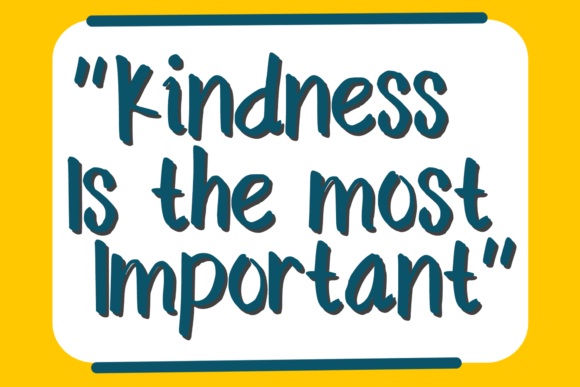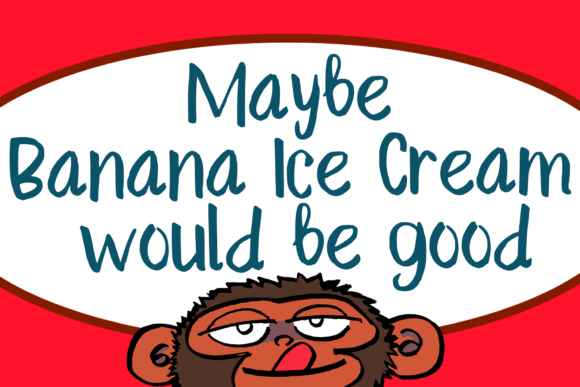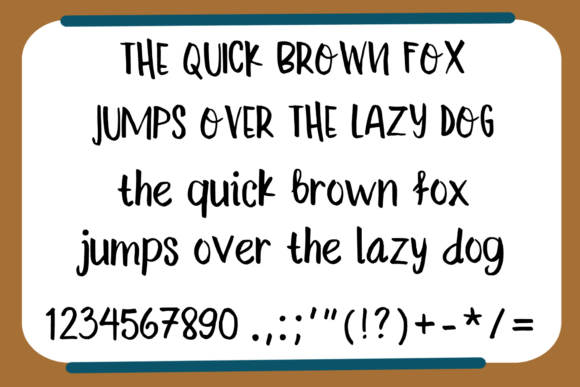
Unleash Your Creativity with Bestfriend Monkey Font
Are you a designer, crafter, or DIY enthusiast looking for a unique and playful font to elevate your projects? Look no further than Bestfriend Monkey Font! This hand-lettered font combines modern calligraphy and contemporary art to create a truly one-of-a-kind typography experience. In this article, we’ll dive into the features and benefits of Bestfriend Monkey Font and explore how it can add a super cool touch to your designs.
What is Bestfriend Monkey Font?
Bestfriend Monkey Font is a fun and playful hand-lettered font that blends modern calligraphy and contemporary art. The font’s creator has poured their heart and soul into crafting a unique and eye-catching typography style that is sure to grab attention. With its mix of bold and delicate lines, Bestfriend Monkey Font is perfect for a wide range of design projects.
Features of Bestfriend Monkey Font
- Hand-lettered with love: Bestfriend Monkey Font is carefully crafted by hand, giving it a personal and unique touch.
- Modern calligraphy and contemporary art: The font combines modern calligraphy and contemporary art to create a truly modern and trendy typography style.
- Playful and fun: Bestfriend Monkey Font is designed to add a playful and fun touch to your designs, making it perfect for projects that require a bit of whimsy.
- Versatile: This font can be used for a wide range of design projects, from stickers and t-shirt designs to logo designs, magazine covers, and more.
Design Ideas with Bestfriend Monkey Font
Bestfriend Monkey Font is an incredibly versatile font that can be used for a wide range of design projects. Here are some ideas to get you started:
- Stickers: Add a fun and playful touch to your stickers with Bestfriend Monkey Font.
- T-shirt designs: Create eye-catching t-shirt designs that are sure to turn heads.
- Logo designs: Use Bestfriend Monkey Font to create unique and memorable logo designs for your business or brand.
- Magazine or book covers: Add a touch of whimsy to your magazine or book covers with this playful font.
- Comics and cartoon drawings: Bestfriend Monkey Font is perfect for creating fun and playful comics and cartoon drawings.
Benefits of Using Bestfriend Monkey Font
So why choose Bestfriend Monkey Font for your design projects? Here are just a few benefits:
- Unique and eye-catching: Bestfriend Monkey Font is a truly unique and eye-catching typography style that is sure to grab attention.
- Scalable: Bestfriend Monkey Font is scalable, making it perfect for use on a wide range of design projects, from small stickers to large billboards.
- Supports multiple languages: This font supports multiple languages, making it perfect for designers and crafters around the world.
In conclusion, Bestfriend Monkey Font is a fun and playful hand-lettered font that is perfect for designers, crafters, and DIY enthusiasts. With its unique and eye-catching typography style, this font is sure to elevate your design projects to the highest level. Whether you’re creating stickers, t-shirt designs, logo designs, or magazine covers, Bestfriend Monkey Font is the perfect choice. So why wait? Download Bestfriend Monkey Font today and unleash your creativity!